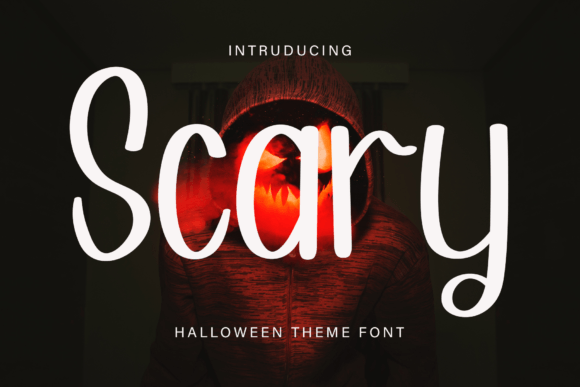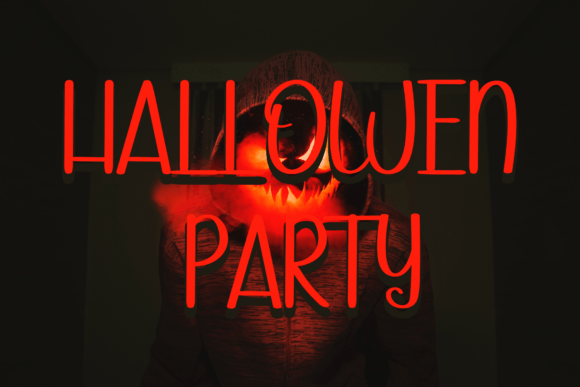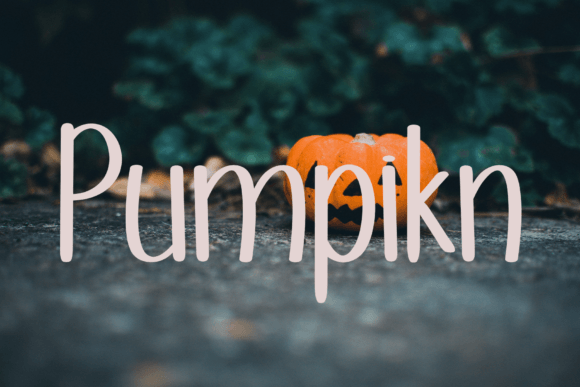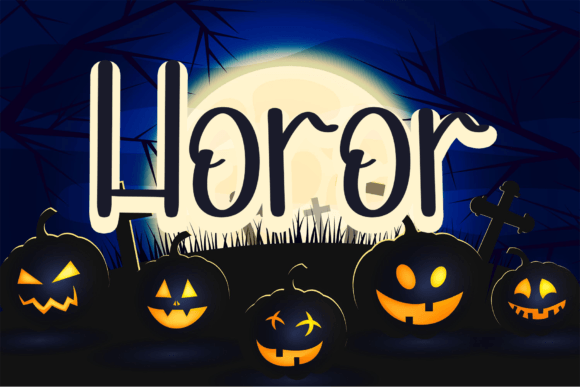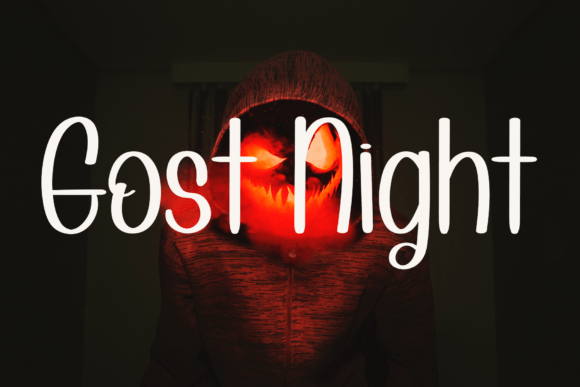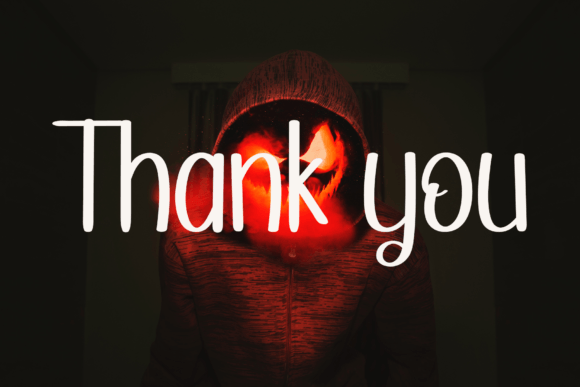
Scary Font
About Scary Font
Introducing Scary, a fun and friendly handwritten font designed to add a unique charm to your creative projects. This font is crafted to help your design ideas stand out and make a statement. With its playful and inviting style, Scary inspires creativity and allows you to create lovely designs with ease.
The fun and friendly nature of Scary makes it versatile for various applications. Imagine using it on greeting cards, invitations, or any design that requires a personalized and welcoming feel. Picture Scary in digital designs, where its unique charm adds a touch of playfulness and character to your creations.